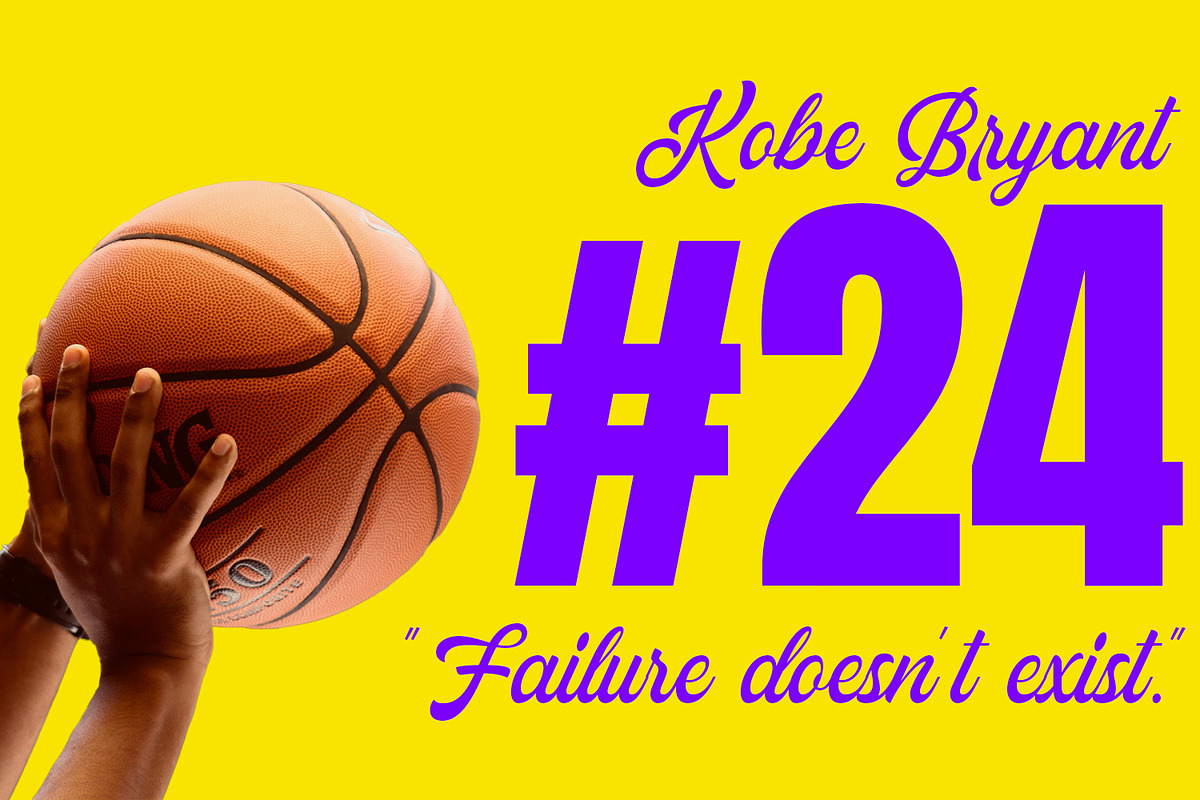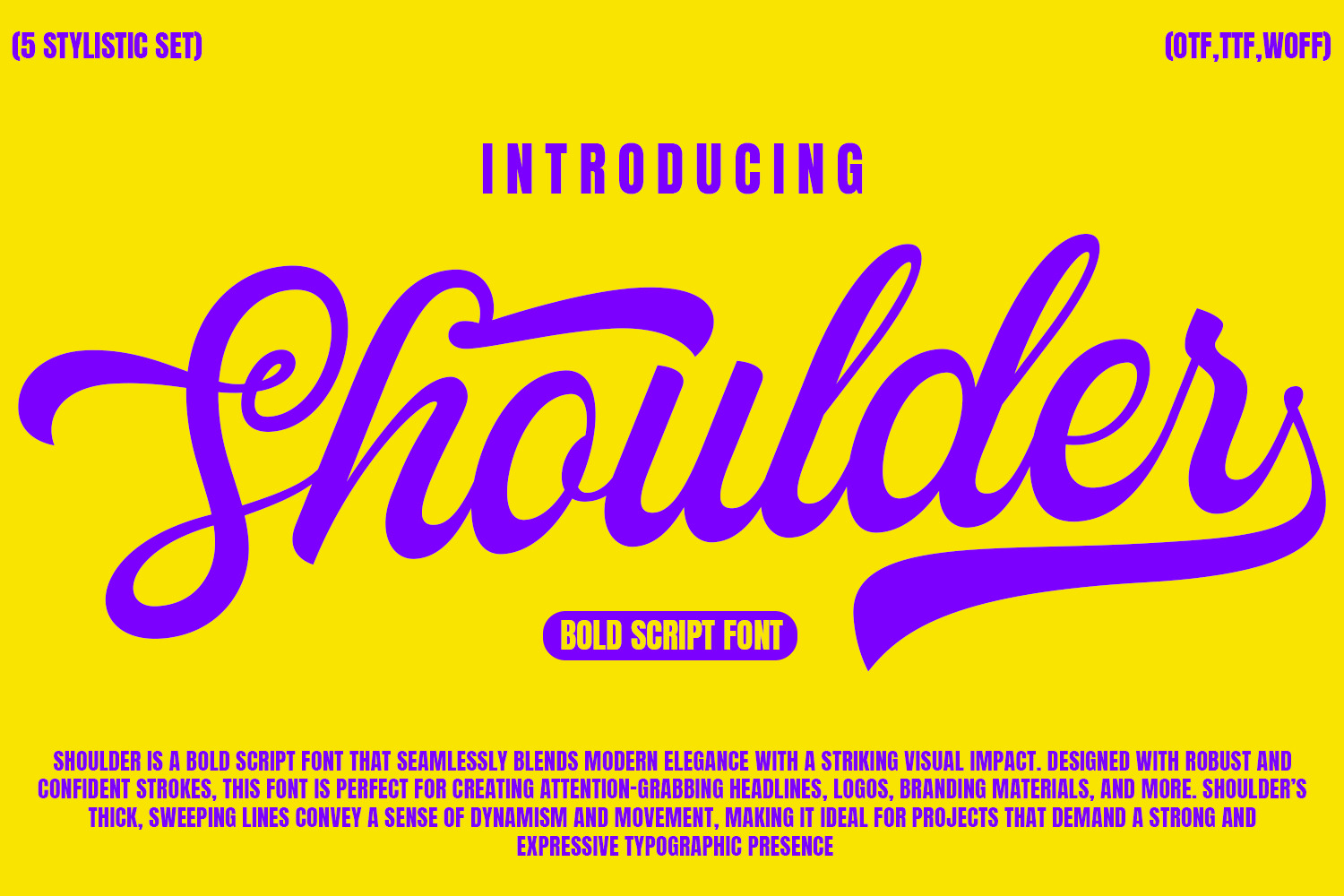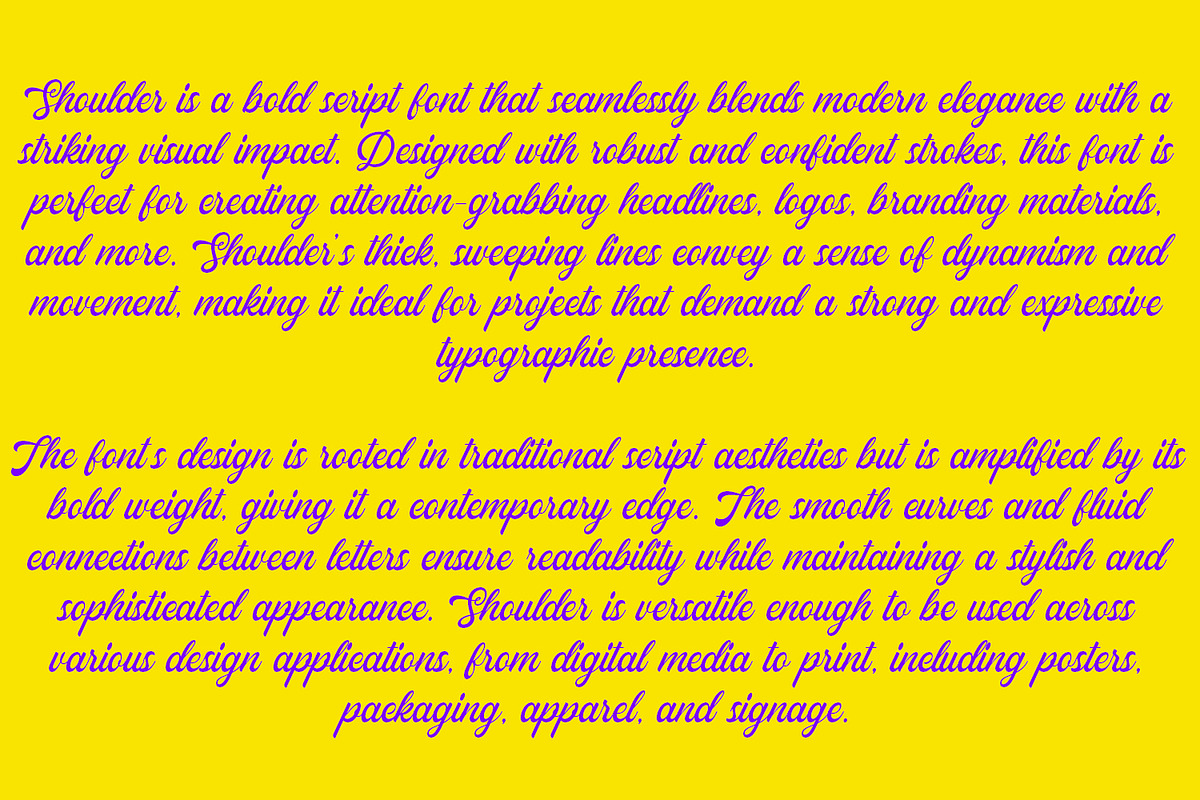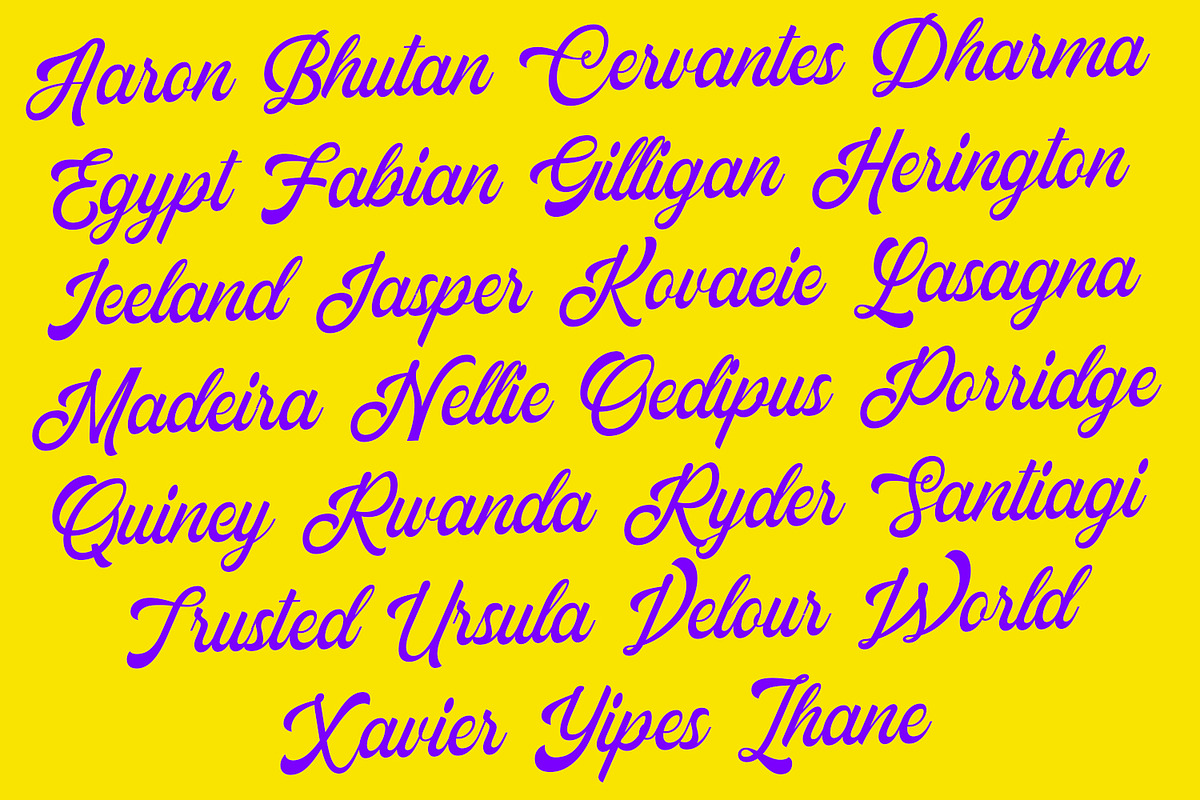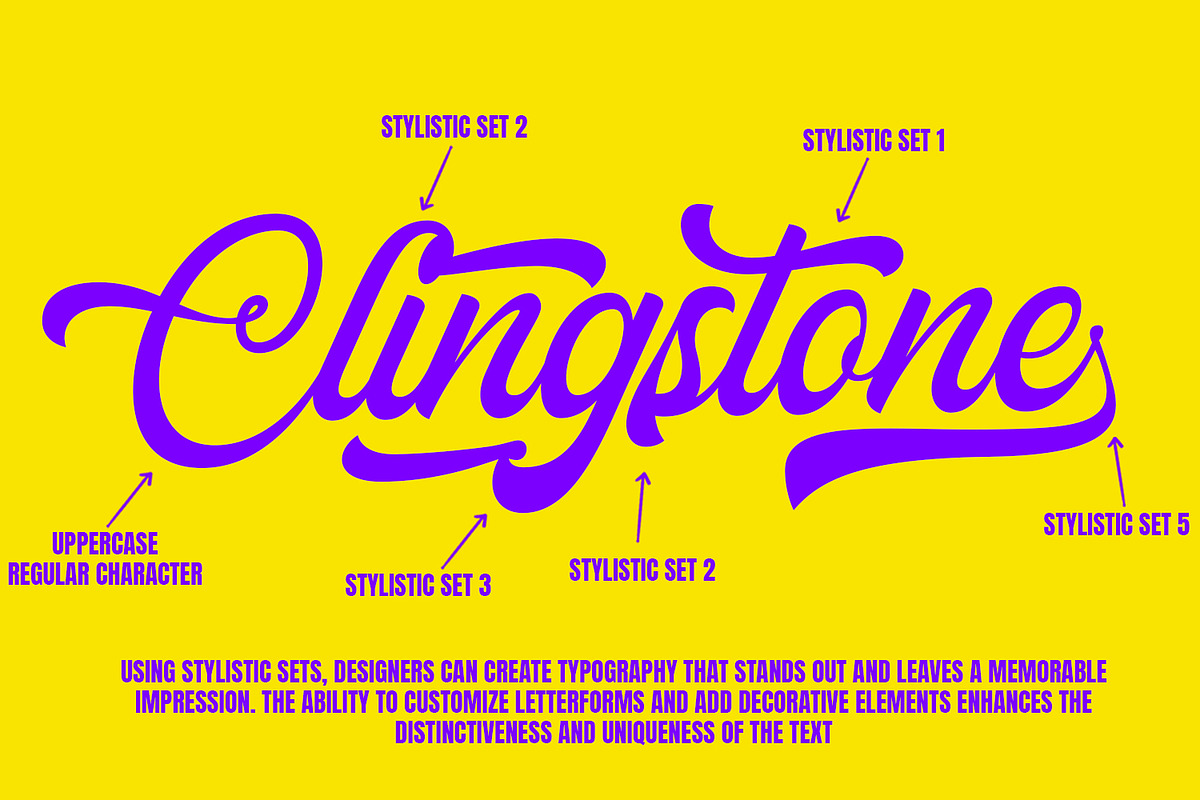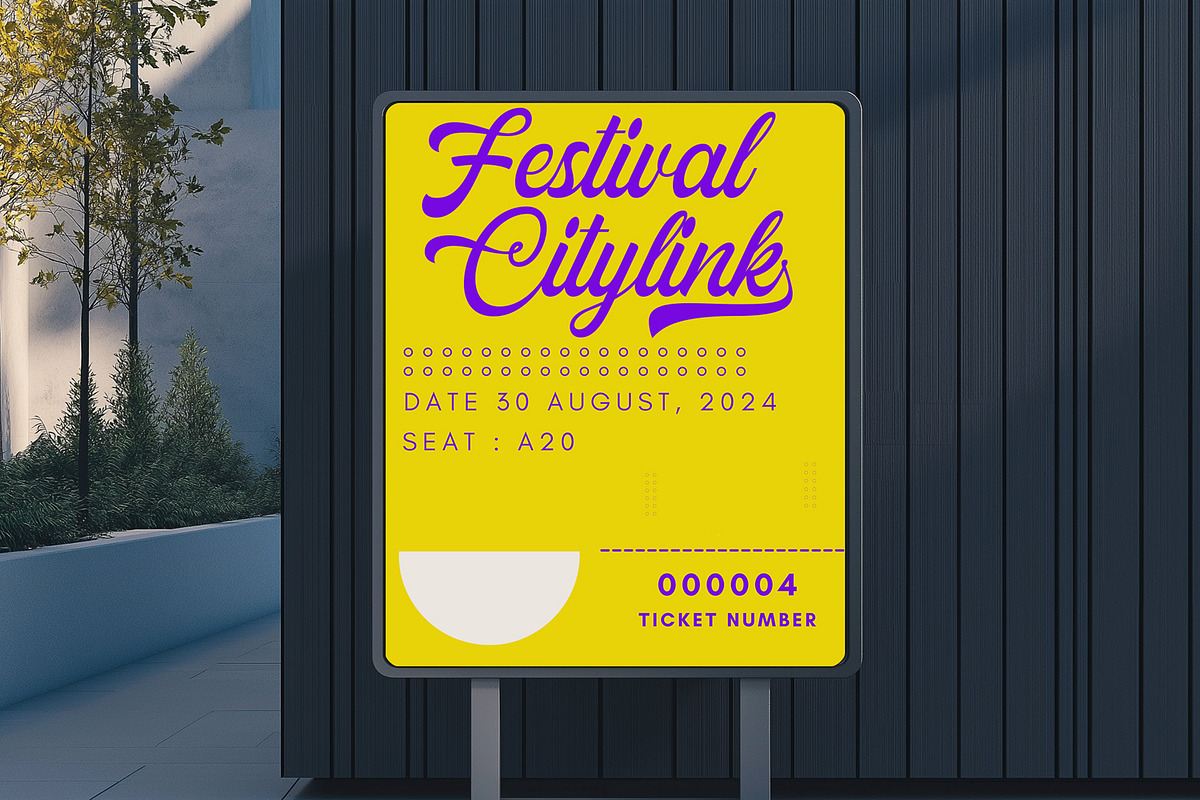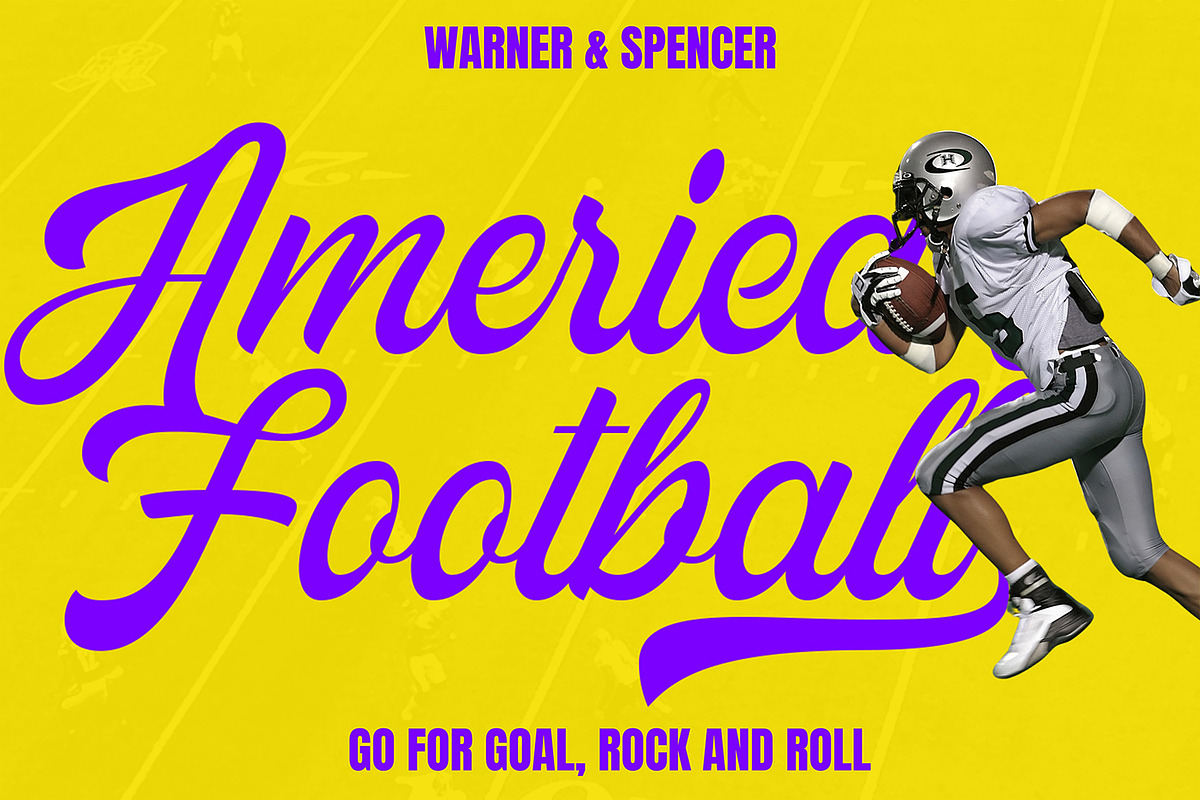
Shoulder Script Font
"Shoulder" is a bold script font characterized by its strong, flowing, and dynamic letterforms. This type of font is often used in designs that require a blend of elegance and assertiveness, such as logos, branding, headlines, and packaging. Here's a detailed explanation of the "Shoulder" bold script font:
Shoulder Bold Script Font
Font Style
- Script Font: A script font is designed to mimic the fluid strokes of handwriting or calligraphy. Script fonts are often used to convey elegance, creativity, and a personal touch. The "Shoulder" font, being a bold script, combines these qualities with a strong and impactful presence.
- Bold Weight: The bold weight of the "Shoulder" font gives it a thick, robust appearance. This makes the text highly legible and attention-grabbing, even from a distance. The boldness also adds a sense of confidence and emphasis, making it suitable for prominent text elements.
Design Characteristics
- Flowing Letterforms: "Shoulder" features smooth, connected strokes that give the font a natural, handwritten look. The flowing nature of the letterforms enhances the readability and aesthetic appeal, making it ideal for designs that require a dynamic and engaging appearance.
- Elegant Curves: The font's curves are elegant yet pronounced, adding a touch of sophistication while maintaining a bold and striking presence. These curves are often emphasized in the tails and swashes of the letters, creating a sense of movement and fluidity.
- Versatility: While "Shoulder" is bold and eye-catching, it retains enough elegance to be versatile across various design applications. It works well in both modern and classic design contexts, making it a popular choice for diverse projects.
Use Cases
- Branding and Logos: The "Shoulder" font is often used in branding to create memorable and distinctive logos. Its bold script style ensures that the brand name stands out, while the flowing, elegant strokes convey professionalism and creativity.
- Headlines and Posters: In headlines, posters, or any large text elements, "Shoulder" provides a strong visual impact. The boldness of the font ensures that the message is clear and attention-grabbing, while the script style adds a stylish, artistic touch.
- Packaging Design: "Shoulder" is a great choice for packaging design, especially in products that aim to convey a sense of luxury, tradition, or artisanal quality. The bold script font helps the product name stand out on the shelf, attracting potential customers.
- Invitations and Cards: For wedding invitations, greeting cards, and other personal or celebratory materials, "Shoulder" adds a warm, inviting feel. The script style gives a handwritten, personalized look, while the boldness ensures the text remains the focal point.
- Signage and Display: In signage and displays, "Shoulder" can be used to create a strong visual impact. Whether in a storefront sign, event banner, or exhibition display, the font’s bold script ensures that the text is both legible and aesthetically pleasing.
Aesthetic Appeal
- Eye-Catching: The boldness of "Shoulder" ensures that it captures attention immediately, making it perfect for designs that need to stand out in crowded spaces.
- Elegant Yet Strong: The combination of script and boldness in "Shoulder" strikes a balance between elegance and strength, making it versatile enough to convey a wide range of emotions and themes.
- Handwritten Feel: The script style of "Shoulder" gives it a natural, human touch, which can make designs feel more personal and relatable.
Stylistic set
Conclusion The "Shoulder" bold script font is a powerful and versatile typeface that combines the elegance of script fonts with the assertiveness of bold typography. Its flowing, connected letterforms create a sense of movement and fluidity, while the bold weight ensures that the text stands out and makes a strong visual impact. Whether used in branding, packaging, signage, or personal invitations, "Shoulder" adds a dynamic and engaging element to any design.